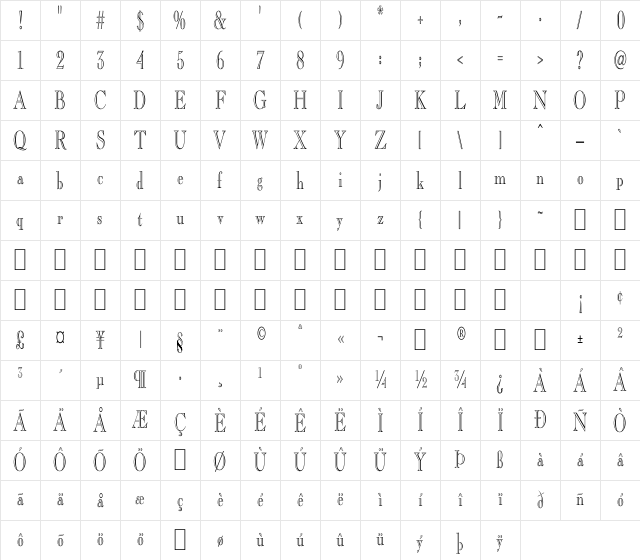
BD Engaved Narrow Regular
Complete BD Engaved Narrow Regular glyph index. Displaying only characters natively supported by BD Engaved Narrow Regular font.
Design Context for BD Engaved Narrow
BD Engaved Narrow is a composed and adaptable typeface that performs quietly and consistently across a wide range of design contexts. Its bold stroke weight gives it real presence on the page. Its narrow stance lets it pack a punch even in space-constrained designs.
A practical choice for tight layouts, multi-column editorial design, and space-efficient signage.